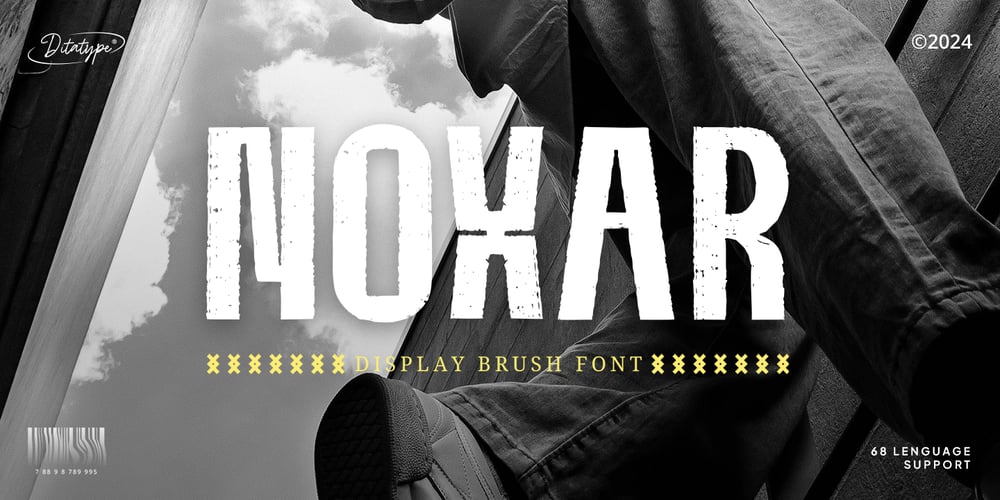
Noxar
Noxar font
Noxar Font Family was designed by Donis Miftahudin and published by Ditatype. Noxar contains 1 styles and family package options. Noxar, a bold display font crafted in uppercase with a thick weight and a touch of grunge. The slightly rough brush details add texture and attitude, giving it a gritty, raw edge perfect for edgy designs. Noxar brings a striking and rebellious aesthetic, making it ideal to show a powerful and dynamic visual impact. In addition, enjoy the features here.Features: Ligatures Multilingual Supports PUA Encoded Numerals and Punctuations Noxar fits in logos, posters, flyers, branding materials, print media, editorial layouts, and many more designs. Find out more ways to use this font by taking a look at the font preview.Thanks for purchasing our fonts. Hopefully, you have a great time using our font. Feel free to contact us anytime for further information or when you have trouble with the font. Thanks a lot and happy designing.